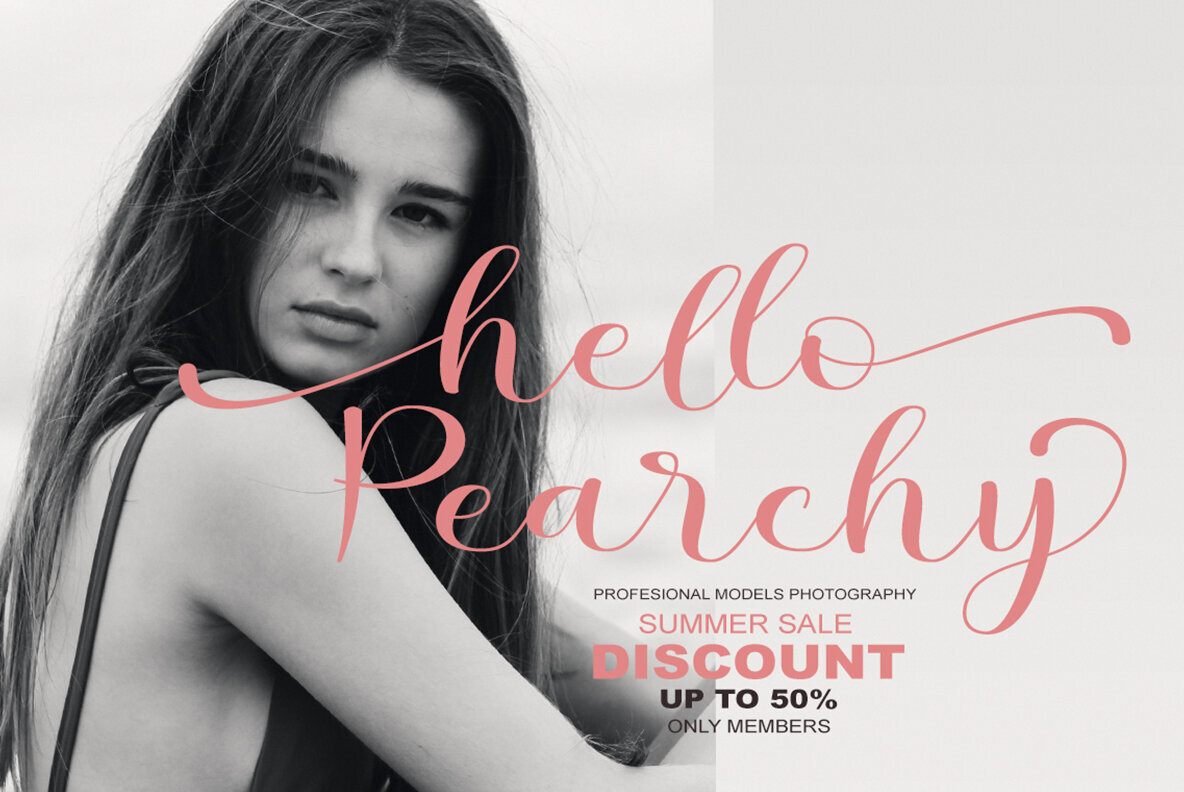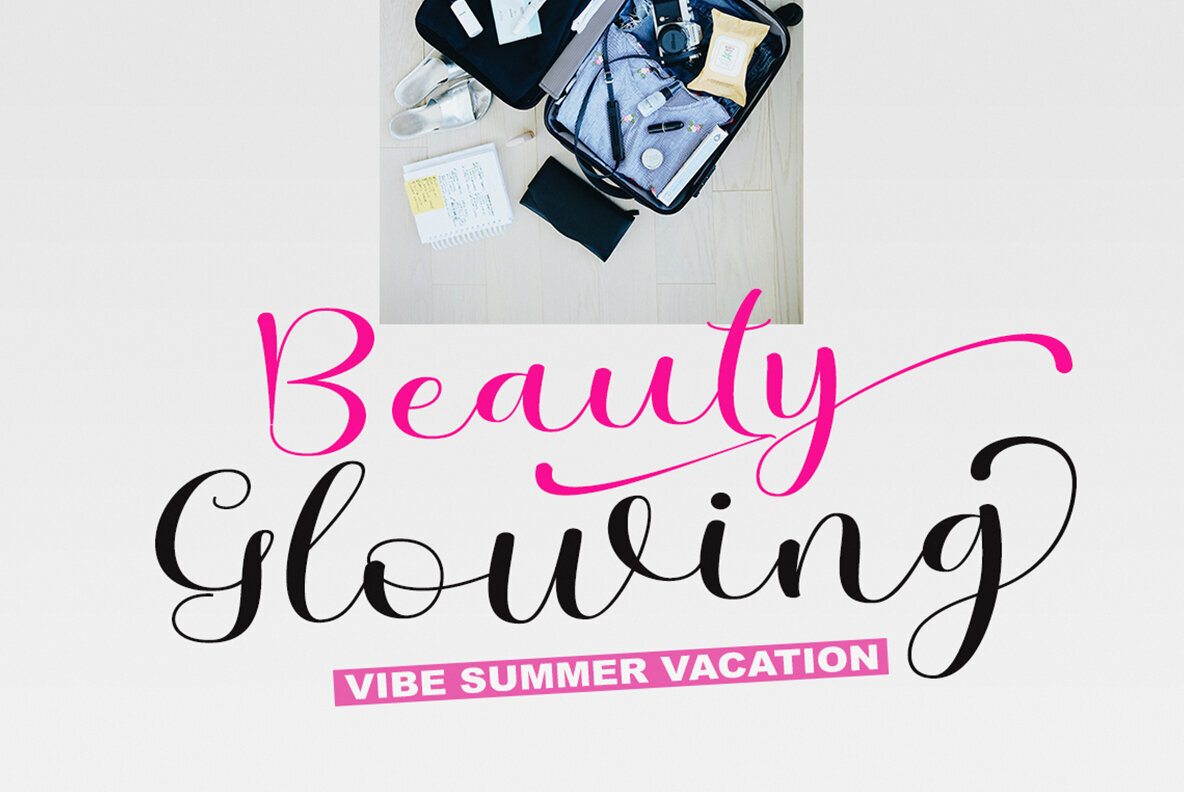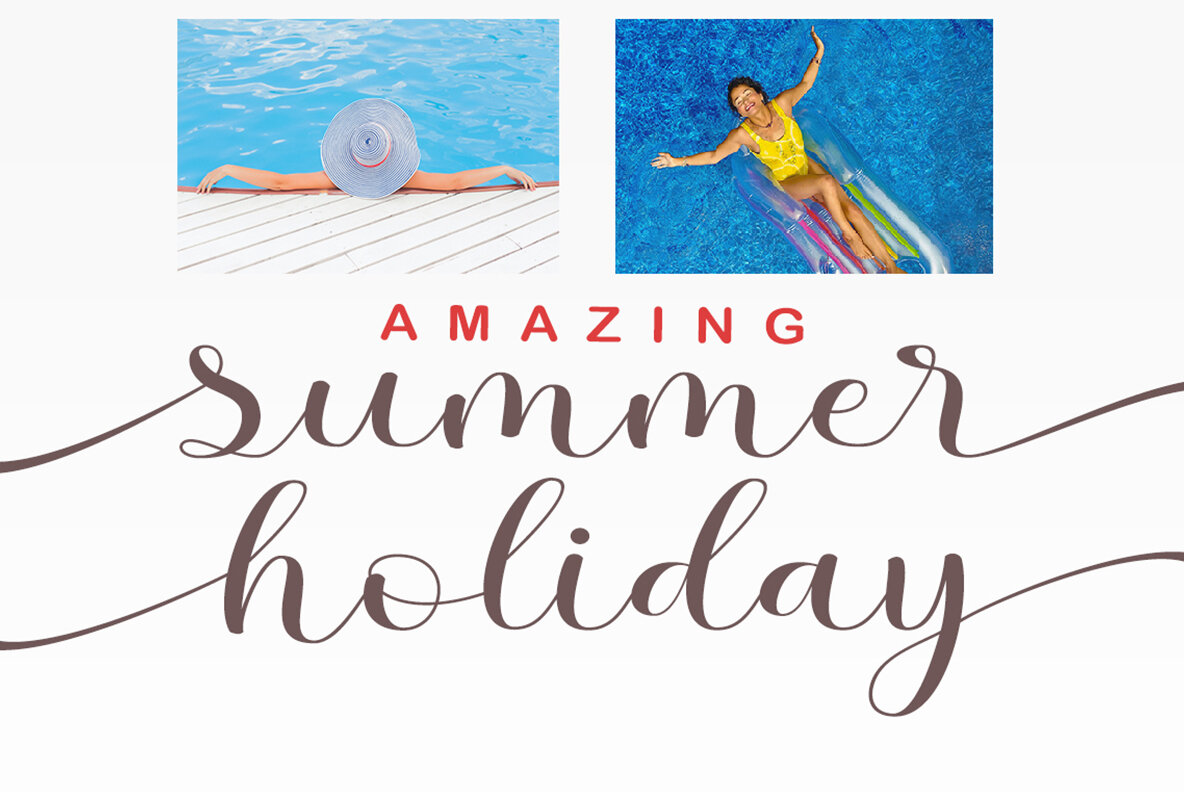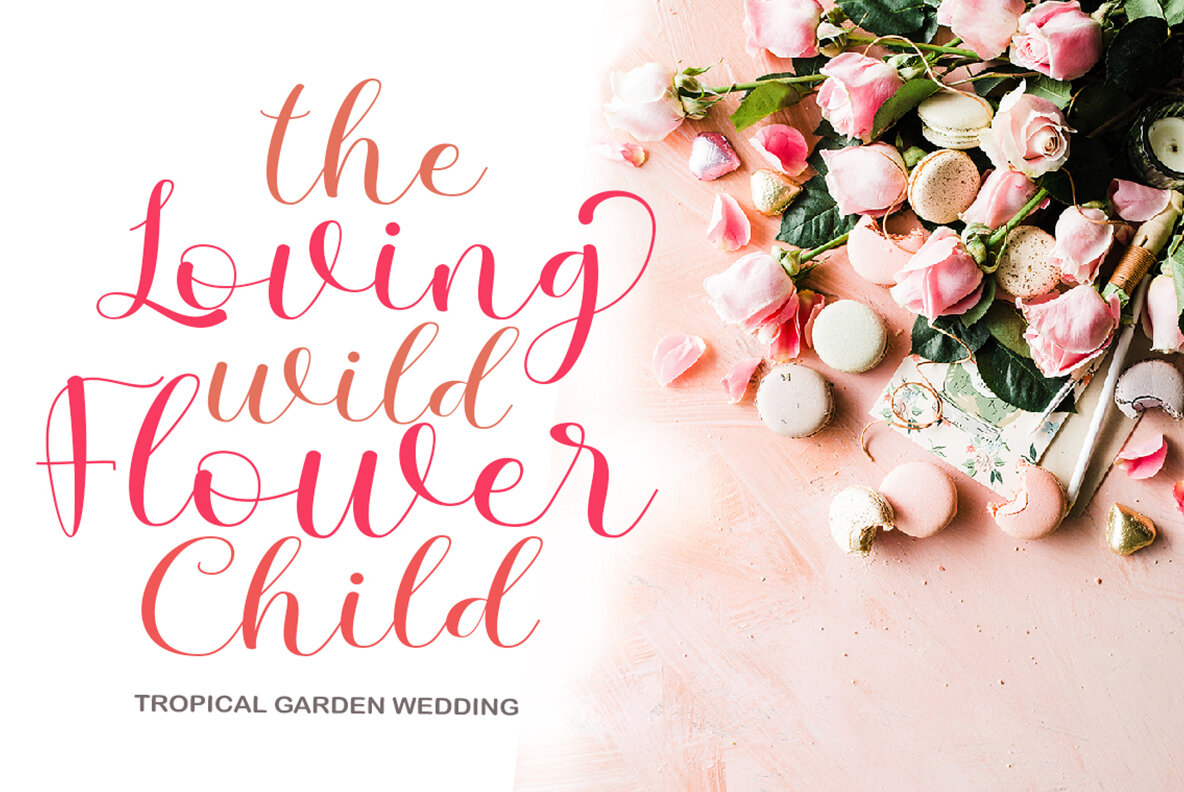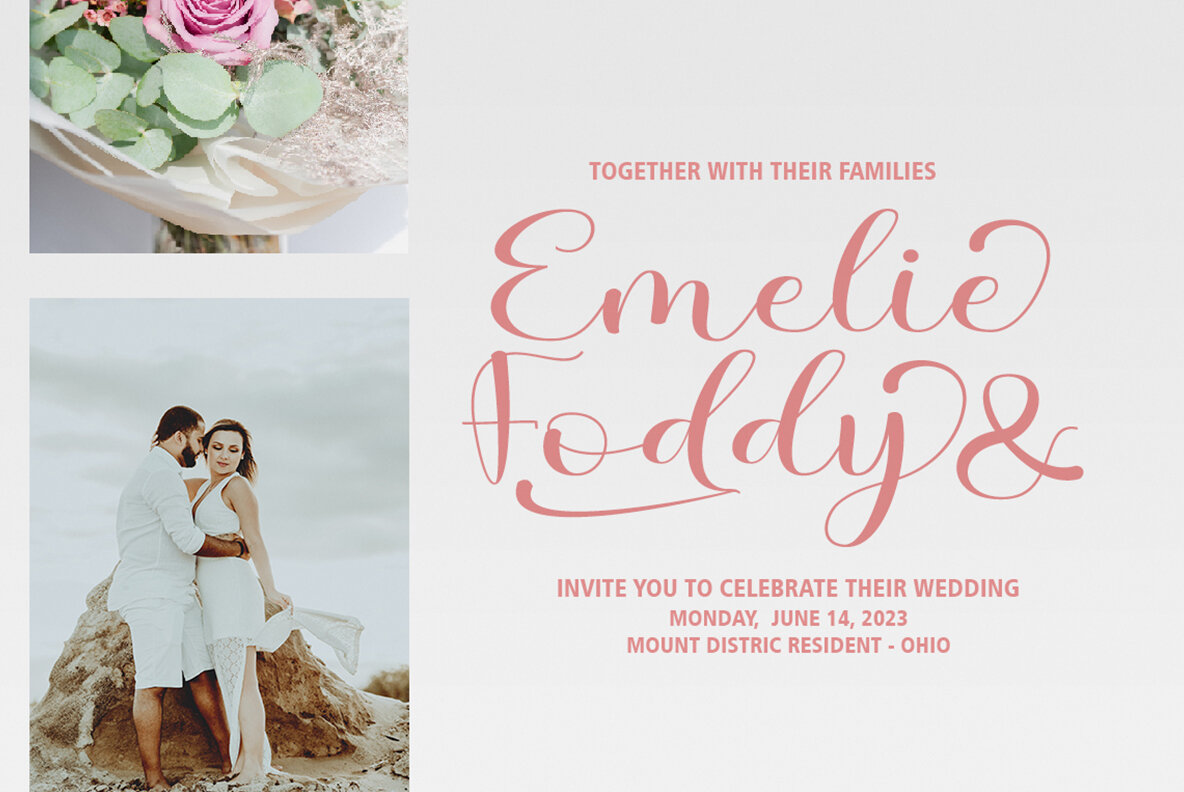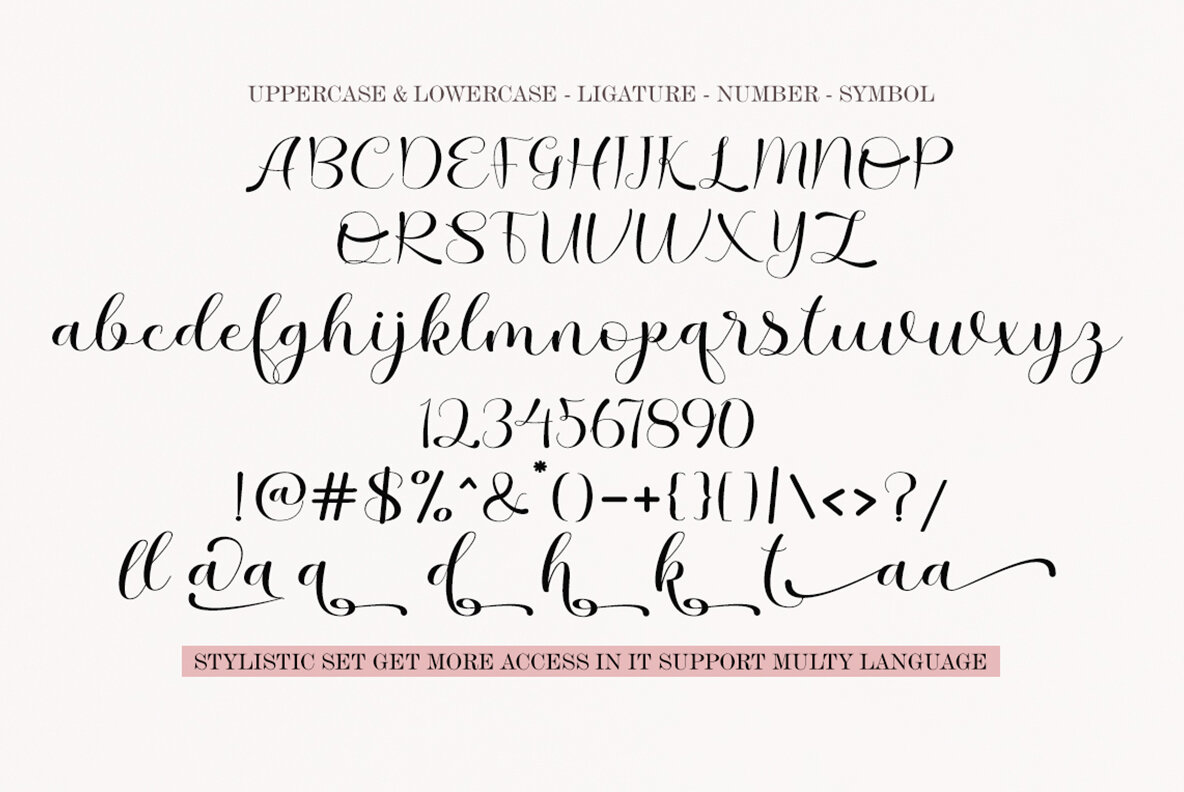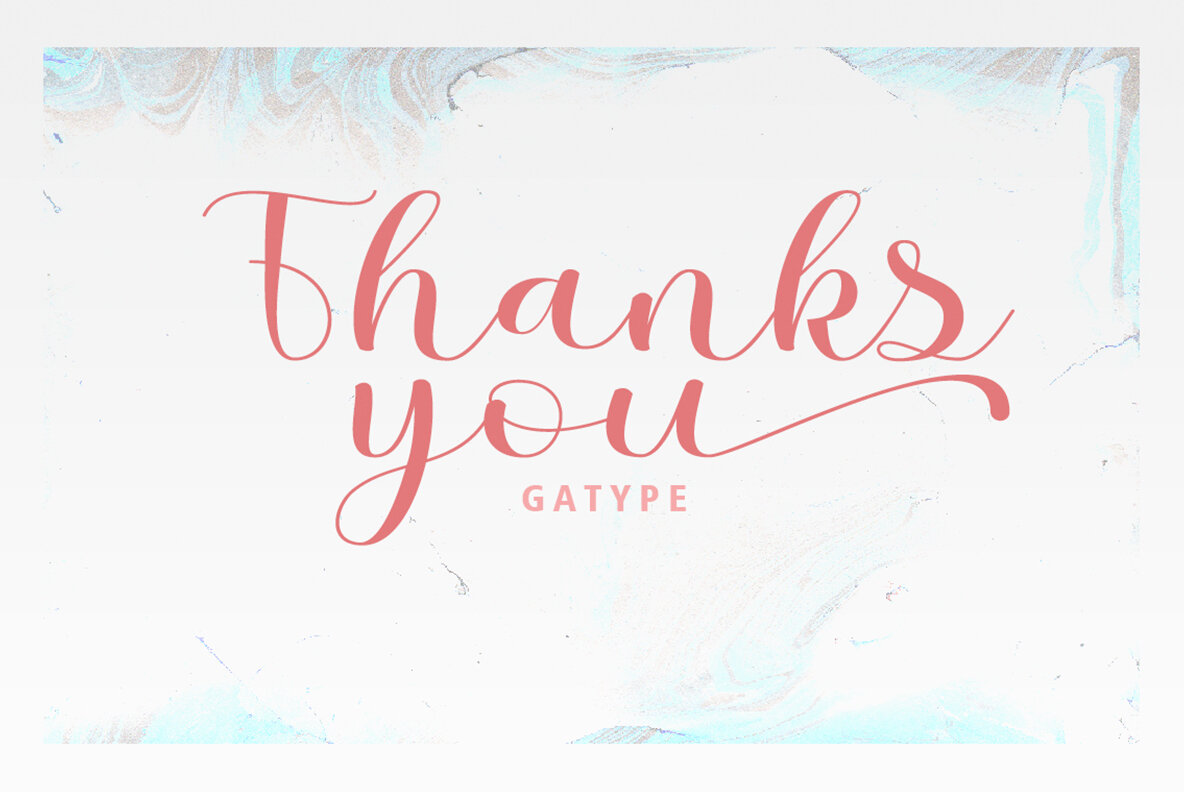
Rolling Font
Rolling Regular
Rolling by Gatype is a typeface inspired by classic style script, designed to offer both elegance and versatility. With a wide array of alternative styles and ligatures, this font allows for creative expression through OpenType features, enabling you to craft letters with a natural touch. Rolling is ideally suited for a variety of formal and creative projects. Its classic design makes it perfect for:Rolling: A Classic-Inspired Script Typeface